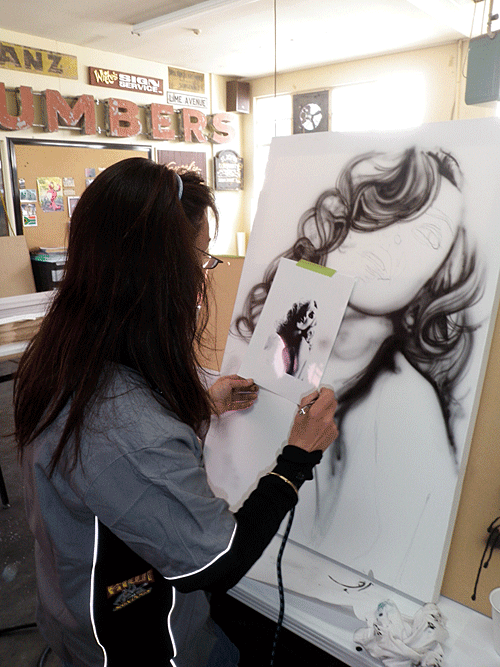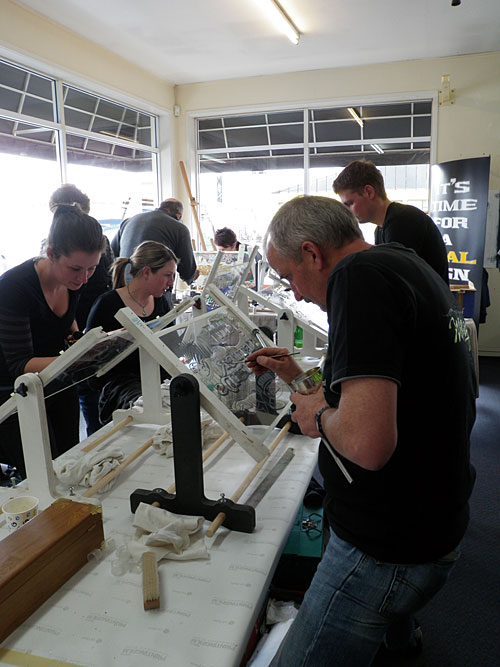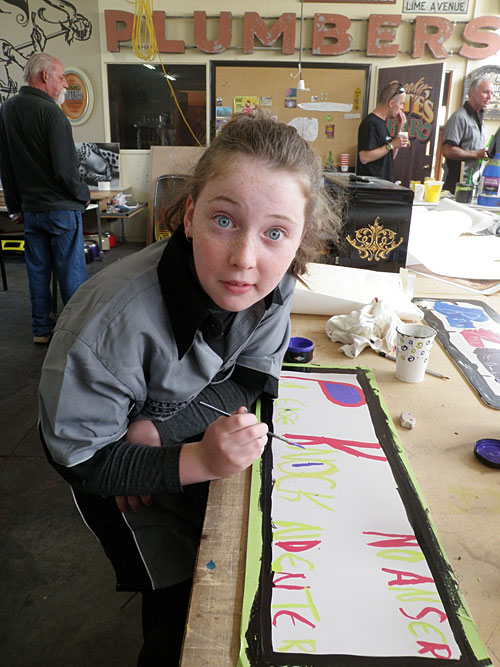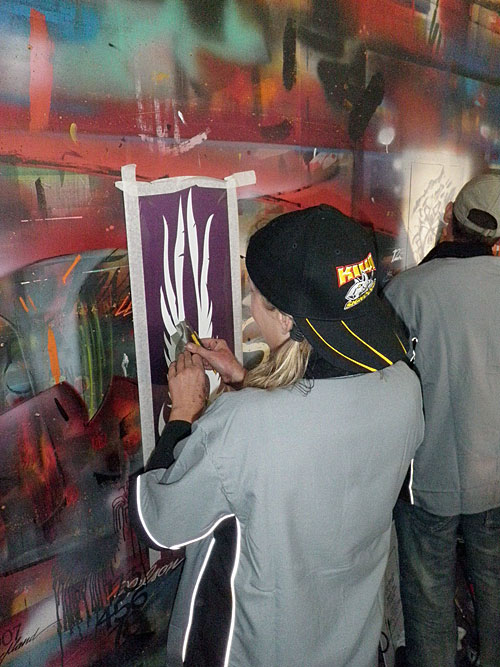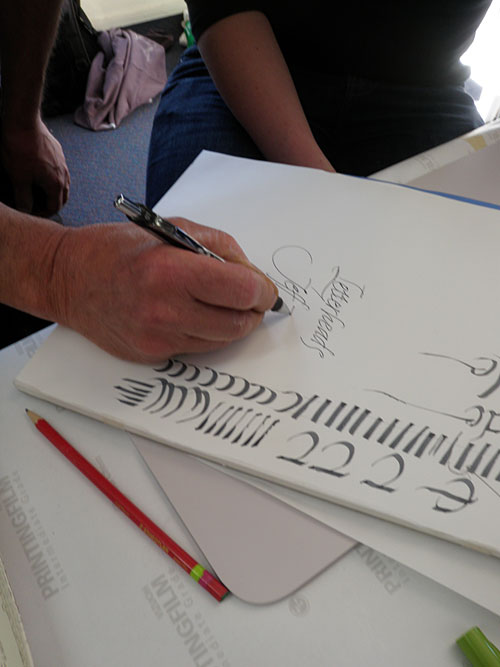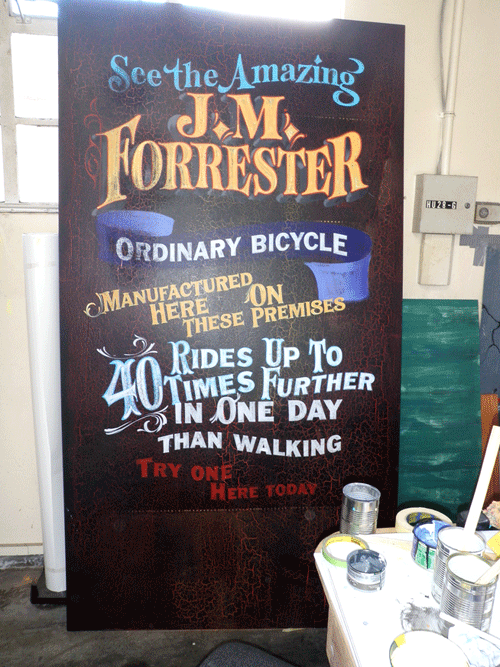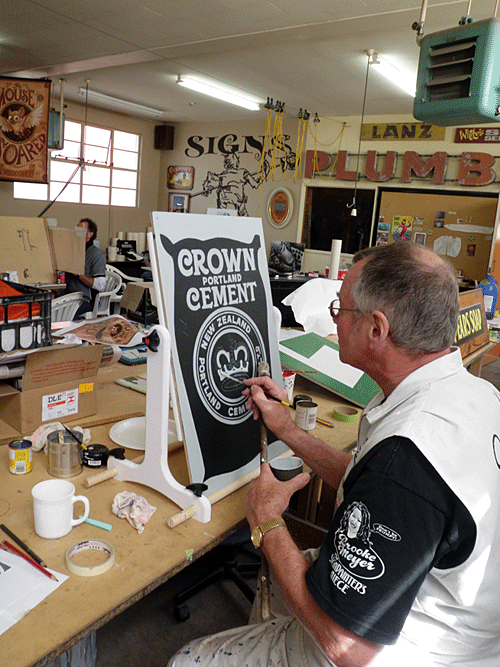
THE 12TH ANNUAL LETTERHEADS CIRCUS COMES TO TOWN
The twelfth staging of Letterheads in New
Zealand provided some real highlights in terms of the quality of work
and projects that those in attendance created.
Leading the way was the host’s own efforts to make
the event a memorable one by providing a ‘circus’ atmosphere from the
outset – you couldn’t possibly miss the entrance to the ‘main tent’ of
this particular three-ring-circus!
Making
this event special was the fact that thirteen people made the trip
across the Tasman from various parts of Australia, no doubt helping to
cement the relationship with fellow ‘heads from the Lucky Country. Jon ‘Bushie^’
Butterworth even commented that it ranked among the top ten that he’s
ever been part of – praise indeed!
With the traditional Letterheads skills being
practiced, it was good to see some variations creeping in to proceedings
with acid etching on both steel and glass, script and scroll layout
demonstrations, even the odd bit of calligraphy being practised.
At the
end of the day it’s probably best to let the photos do the talking –
enjoy!!